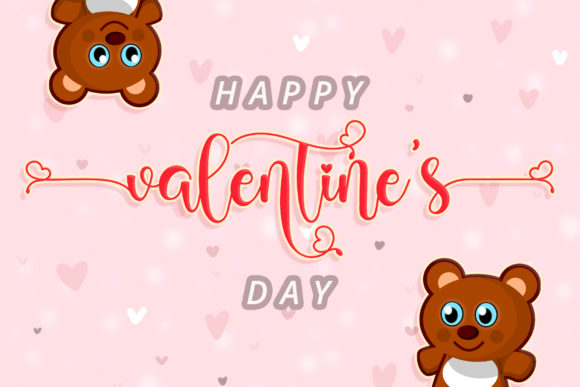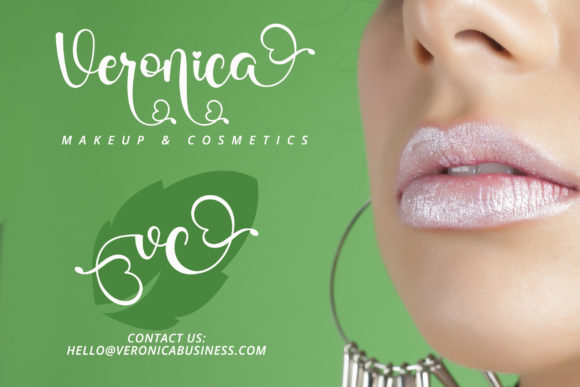
Mister Valentine Font
Mister Valentine is romantic, cute, and bouncy script font with a romantic touch. This font is so perfect to be used for many designs, such as wedding invitation, greeting card, social media quotes, branding, logo, and many more.